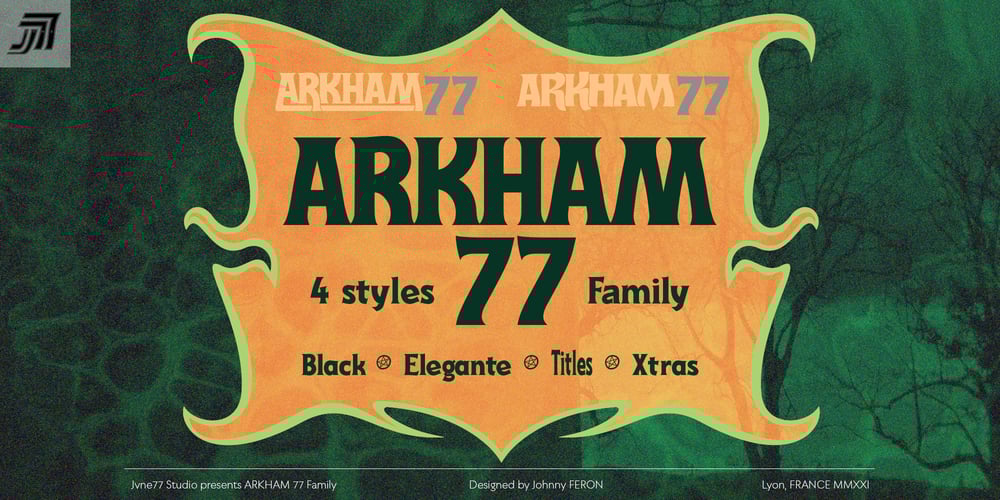
Arkham77 Font Family was designed by Johnny Feron and published by Jvne77 Studio. Arkham77 contains 4 styles and family package options. Inspired by the works of Howard Philips Lovecraft (1890-1936), and the city of Arkham lying abroad the Miskatonic River… witth all those witchcrafts secrecy and the infamous Necronomicon. The Elder Ones and the mighty Cthulhu, who lies and not dies within the dephts of the ocean in R’lyeh he’s awaiting… arf, anyway this font will well set for posters, detective stories or horror books, pulps and others…*Full western latin language with most diacritics and numbers*Included in this set:- ARKHAM77 Black (More formal display) 560 glyphes- ARKHAM77 Elegante (for a creepiest rendition) 590 glyphes- ARKHAM77 Titles (as its name do not tells, for credits, or simple text) 560 glyphes- ARKHAM77 Extras (Embellish your work with this cool collection of frames and ornaments) +100 glyphes